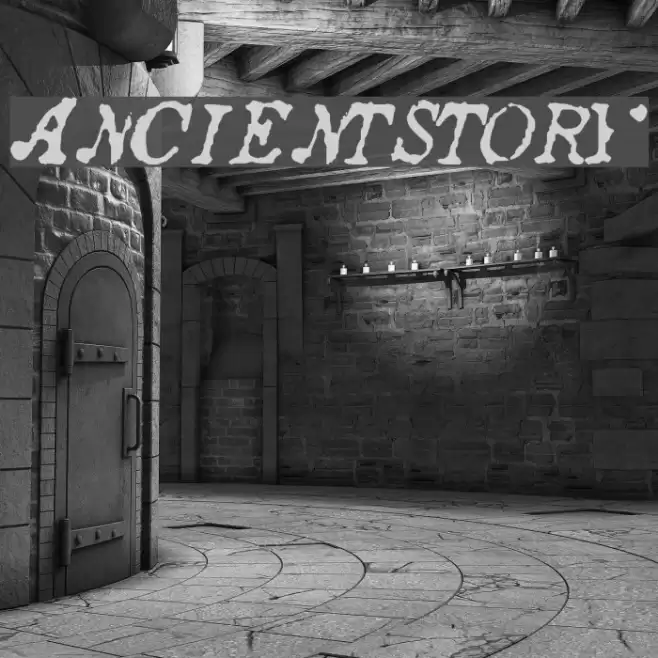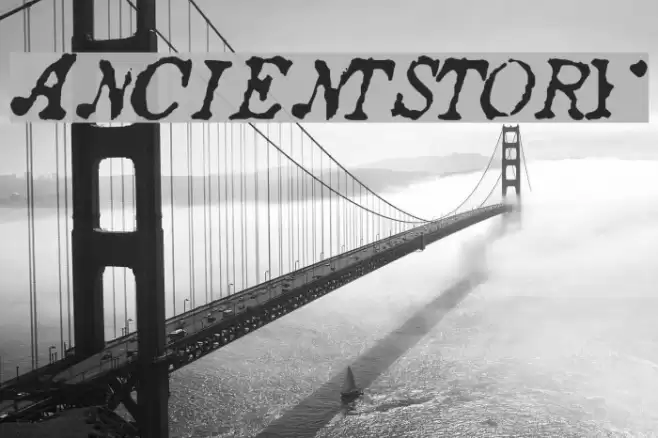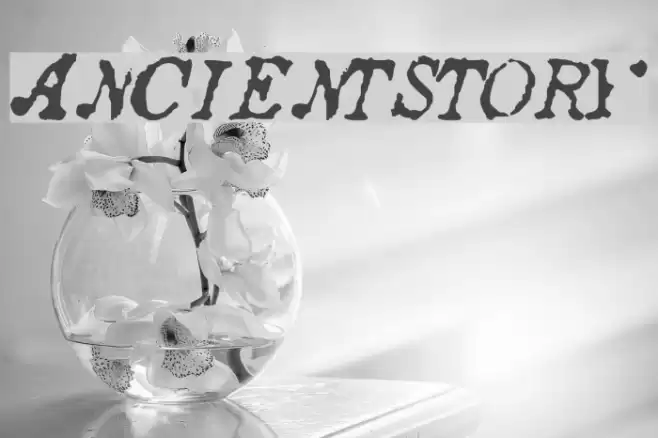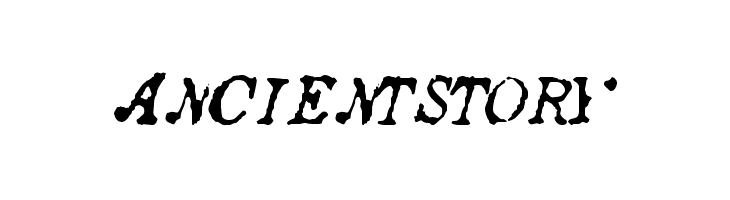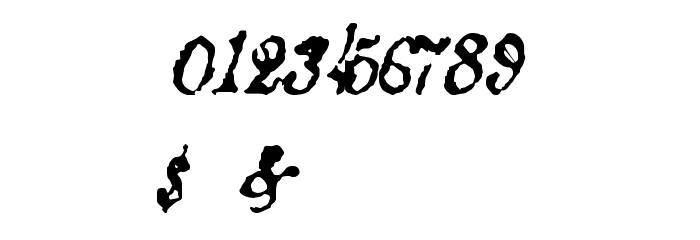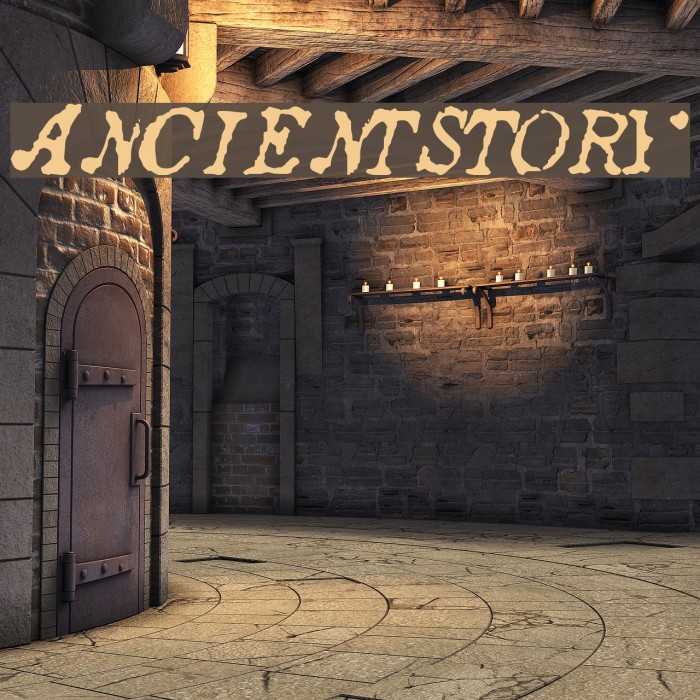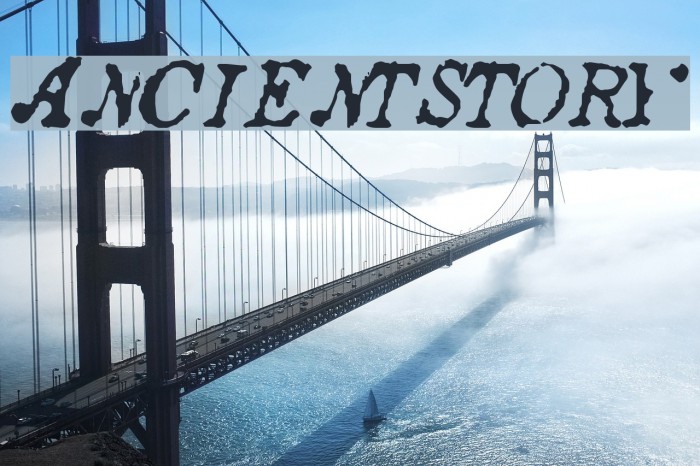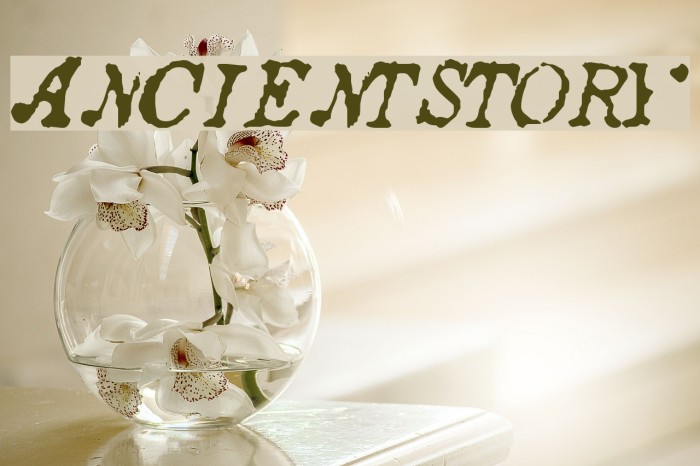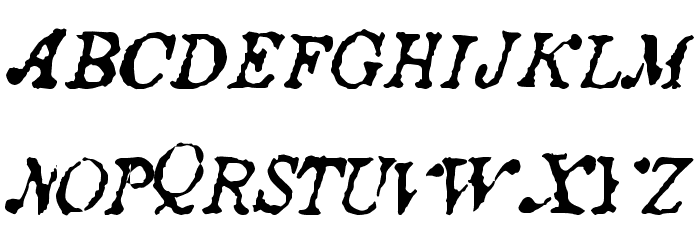
AncientStory Font
AncientStory Description
This font exudes a vintage charm with its calligraphic style, reminiscent of ancient manuscripts. The characters are intricately designed with a textured appearance, giving them an aged and worn look. The uppercase and lowercase letters maintain a consistent style, with elegant flourishes and a slightly irregular baseline that adds to the historical feel. The numbers and special characters follow the same aesthetic, ensuring a cohesive appearance across all text. This font is perfect for projects that require a touch of antiquity and elegance, such as historical novels, themed invitations, or branding for vintage-inspired products.
A vintage, calligraphic font with a textured, ancient manuscript style from Distorted Eroded fonts.
- Proposed Projects: Ideal for historical novels, themed invitations, or vintage-inspired branding.
- Overall Style: Vintage